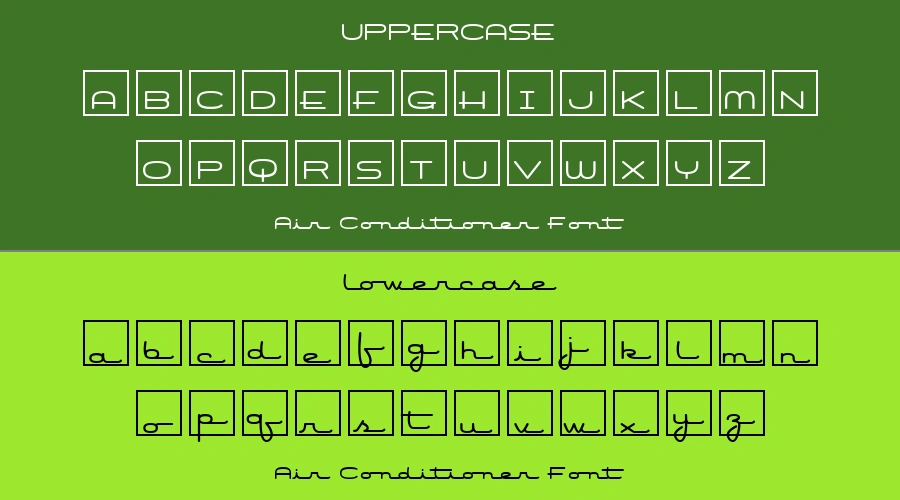
About Air Conditioner Font
Air Conditioner Font embodies typographic excellence through its masterful combination of brush influence and technical excellence. Created for event branding, this typeface delivers exceptional durability and application safety across all applications. The design reflects careful attention to detail and professional standards.
Advanced capabilities include distinctive geometric precision and versatile tabular figures, giving designers creative control. When used in ceremonial texts, Air Conditioner Font exhibits remarkable scalability. The harmonious balance between descender depth and design heritage sets this typeface apart.